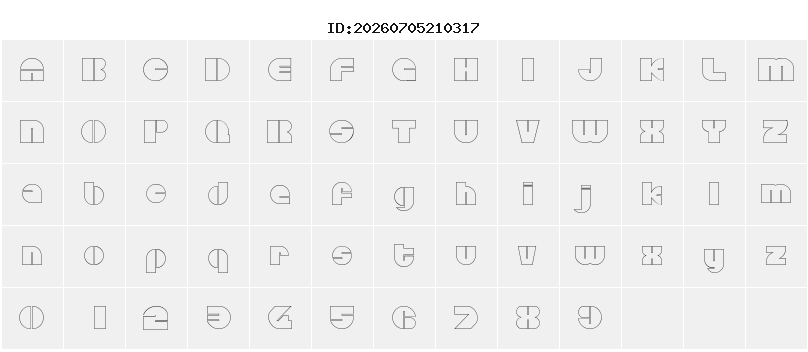
Disandat Outline SF Preview
About Disandat Outline SF.ttf
Disandat Outline SF.ttf is a modern, elegant sans-serif font designed for ultimate readability and visual harmony. Perfect for branding, headlines, web design, and print materials.